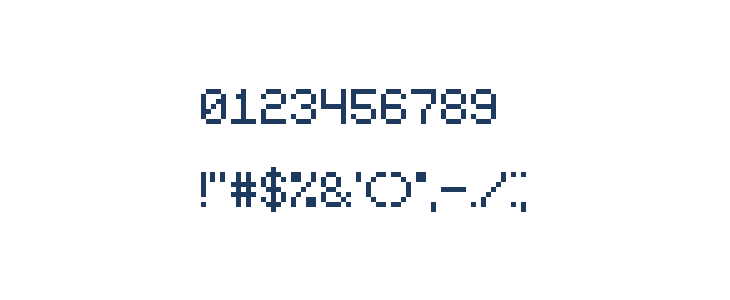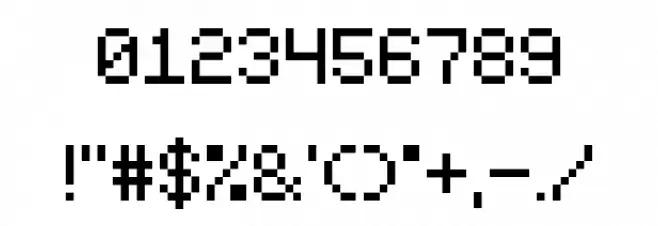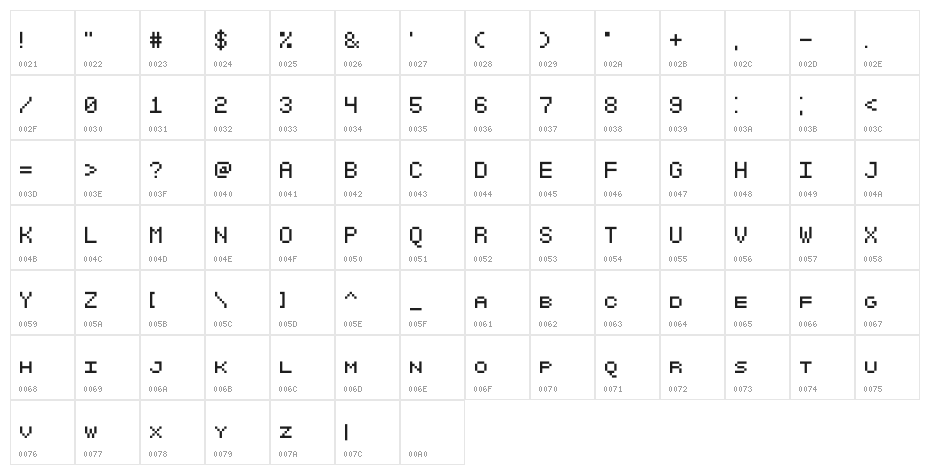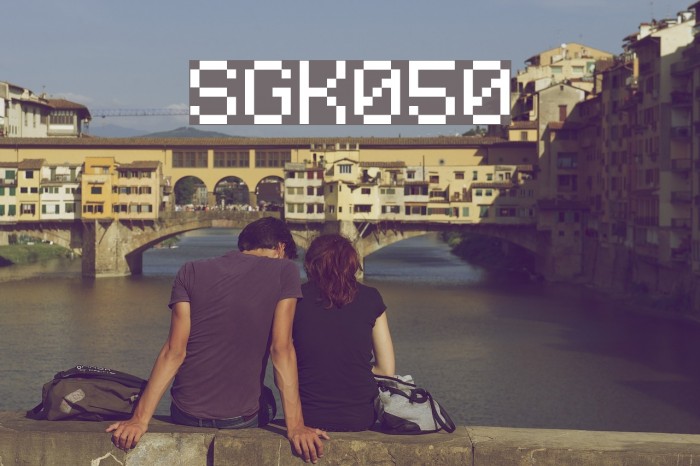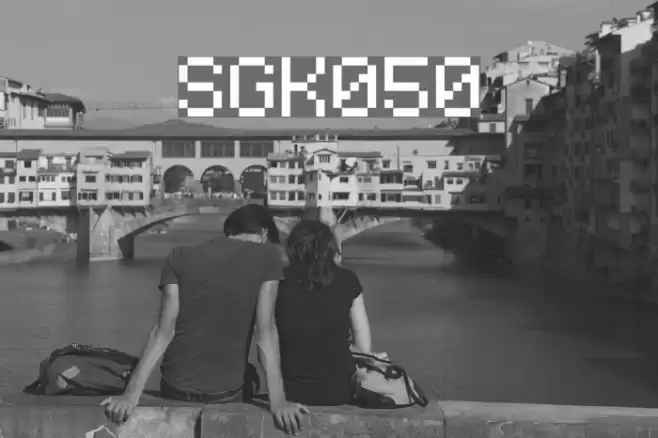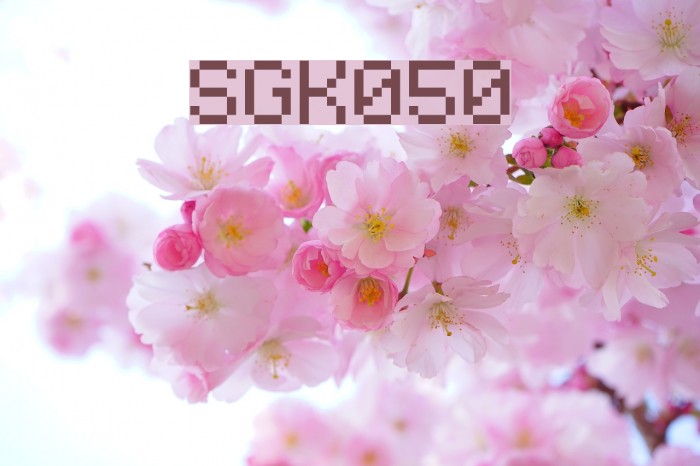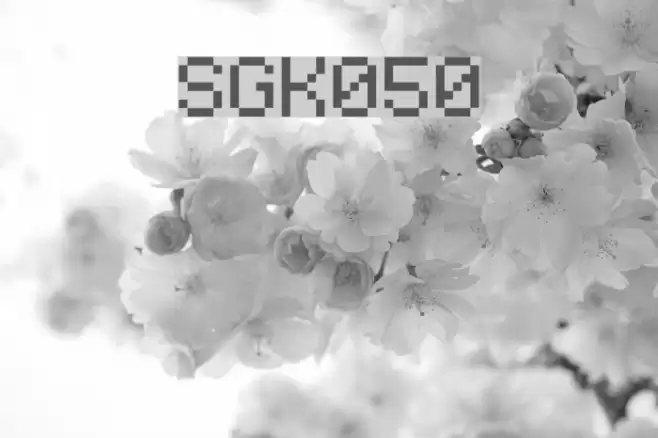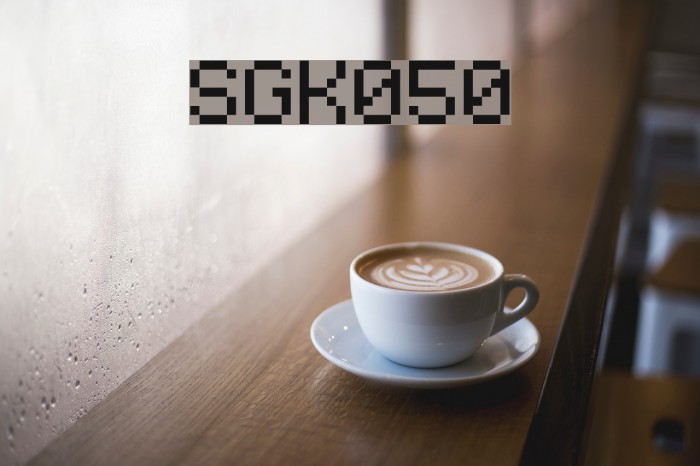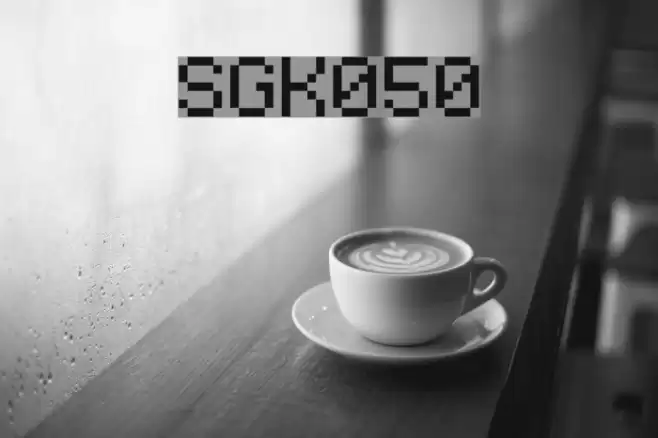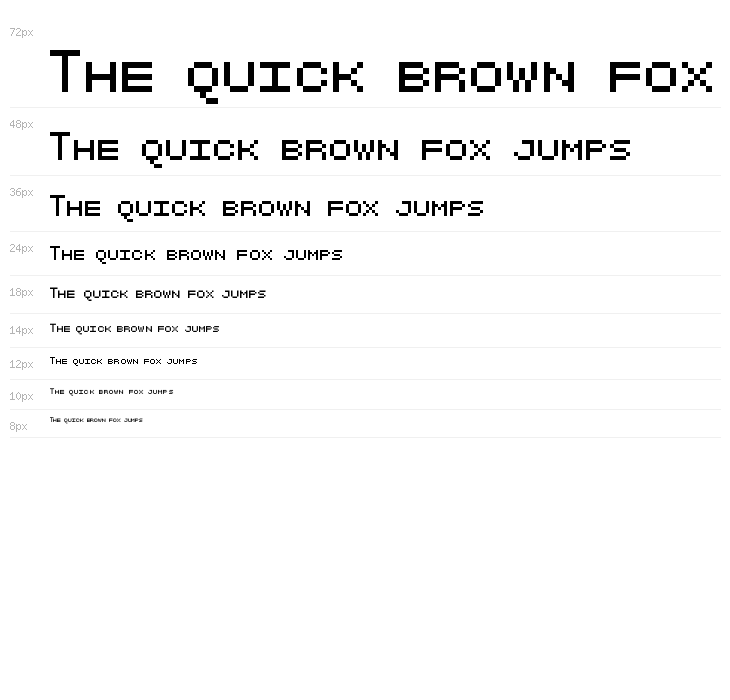
SGK050 Font
SGK050 Description
This font features a pixelated, grid-like structure, reminiscent of early digital displays and retro video games. Each character is composed of small square blocks, creating a uniform and geometric appearance. The uppercase and lowercase letters maintain a consistent height, with minimal differentiation between them, emphasizing the font's monospaced nature. The numerals and special characters follow the same pixelated style, ensuring a cohesive look across all glyphs. This design evokes a sense of nostalgia, making it ideal for projects that aim to capture a vintage digital aesthetic.
| Use Case | Logos, Digital displays, Retro-themed projects |
| Proposed Projects | Ideal for retro video game designs, digital art projects, and any creative work that seeks to evoke a nostalgic digital feel. |